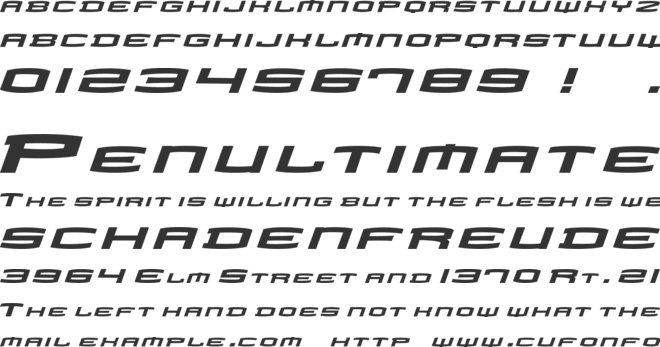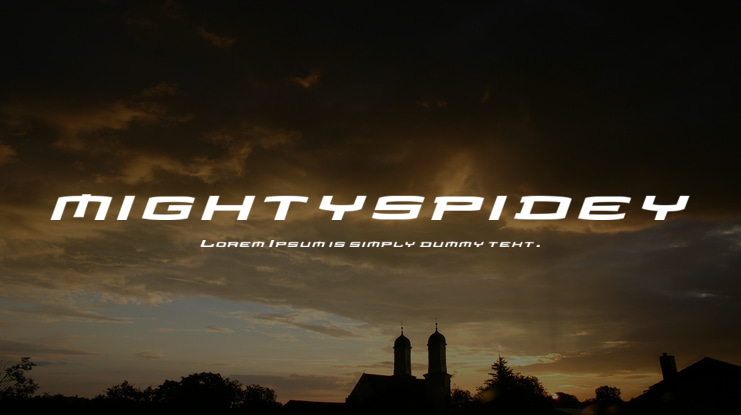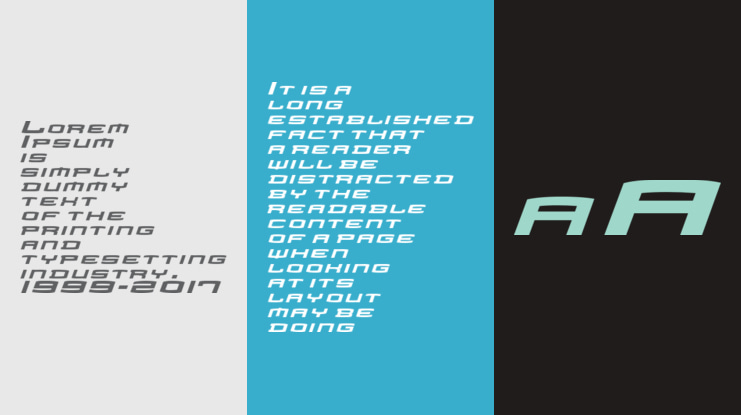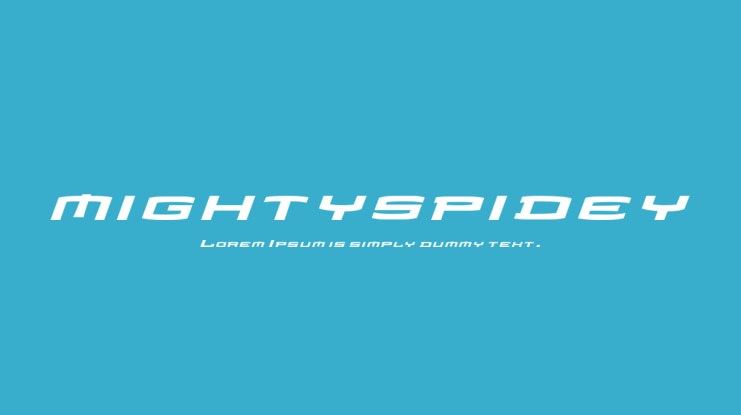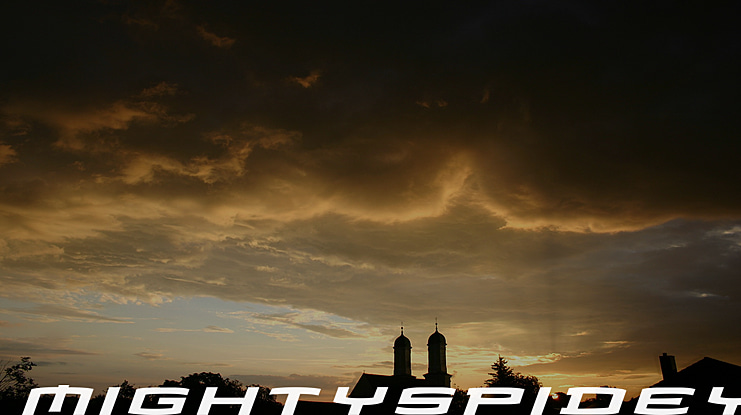
mightyspidey Font
While working on a 2004 Spider-Man artwork, I realized no one did a font based on the movie logo. So I decided to make my own.
Named “mighty spidey” after an iOS game I started developing a few years ago, but never had the chance to finish.